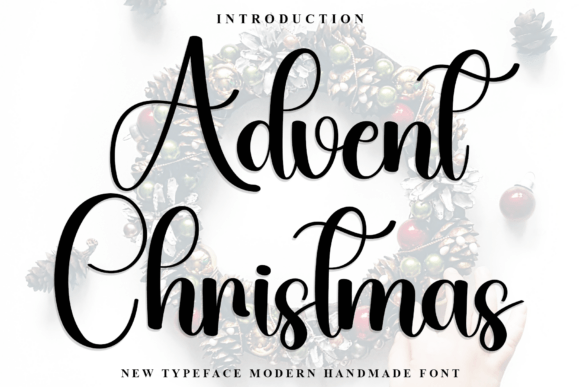
Unlock the Magic of the Holiday Season with the Advent Christmas Font
As the holiday season approaches, I find myself getting lost in the pages of my favorite Christmas storybooks, mesmerized by the beautiful calligraphy and elegant typography that bring the festive atmosphere to life. It’s moments like these that remind me of the importance of beautiful design in capturing the essence of the season.
That’s why I’m excited to introduce you to the Advent Christmas Font, a stunning and elegant typeface designed to enhance the beauty of your projects and evoke the timeless spirit of the holiday season. With its contemporary atmosphere and impeccable form, this font is a valuable addition to any designer’s toolkit, offering a range of possibilities for creating breathtaking holiday designs.
With its PUA encoding, accessing the amazing glyphs and ligatures of the Advent Christmas Font is a breeze, making it easier than ever to add a touch of holiday magic to your projects.
Key Features of Advent Christmas Font
- Unique Characteristics: This font features a unique, hand-drawn design with intricate details, making it perfect for creating festive and holiday-themed designs.
Advent Christmas Font Review
Overall, I think Advent Christmas Font is a decent choice for holiday-themed projects, but it has its limitations.
- Unique and festive design: Advent Christmas Font has a distinctive look that’s perfect for Christmas and winter-themed projects.
- Good legibility: The font is easy to read, even in smaller sizes.
- Limited character set: The font only includes uppercase and lowercase letters, as well as a few punctuation marks. This can be a limitation for projects that require more complex text.
- No special characters: The font does not include special characters like accents or currency symbols.
- Not suitable for body text: Due to its decorative nature, Advent Christmas Font is better suited for headings and titles rather than body text.
Overall, I would recommend Advent Christmas Font for projects that require a festive and unique look, but it’s not a good choice for projects that require a high level of functionality or complex text.
Tips for Getting the Most Out of the Advent Christmas Font
Use the Advent Christmas Font in conjunction with other festive elements, such as holly or snowflakes, to create a cohesive holiday design.
Experiment with different font sizes and styles to create visual interest and emphasis in your design.
Consider pairing the Advent Christmas Font with a bold, bright color scheme to create a festive and eye-catching design.
The Advent Christmas Font is perfect for holiday-themed designs, such as:
Christmas cards and invitations
Holiday social media graphics
Christmas party invitations and decorations